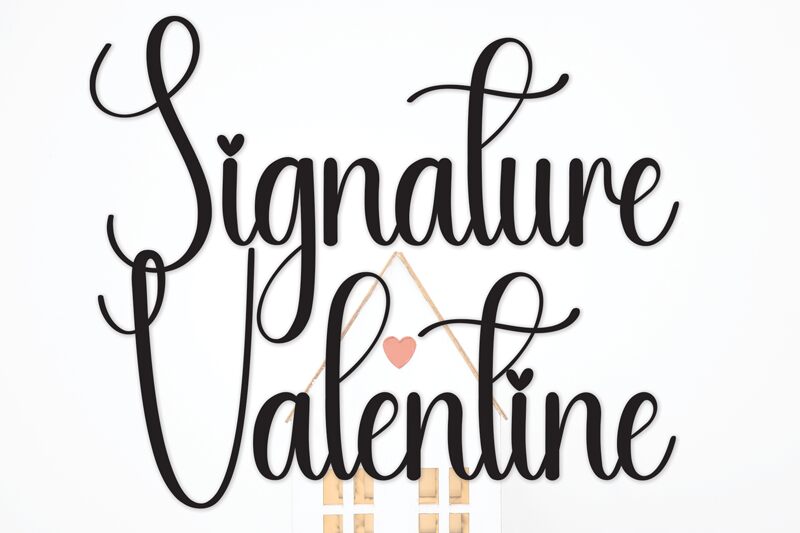
Signature Valentine
Signature Valentine by Scratchones embodies the artistry of calligraphy with the personal touch of a signature. This font dances across the page with fluid strokes and elegant flourishes that hint at a crafted spontaneity, evoking the intimacy of heartfelt words penned in ink. Its charismatic swoops and swirls capture an essence of romanticism, making it perfect for wedding invitations, love letters, and branding where a touch of personal sophistication is desired.
Signature Valentine's charm lies in its ability to transform any text into a piece of beauty, as if whispered softly or written with passion under candlelight.